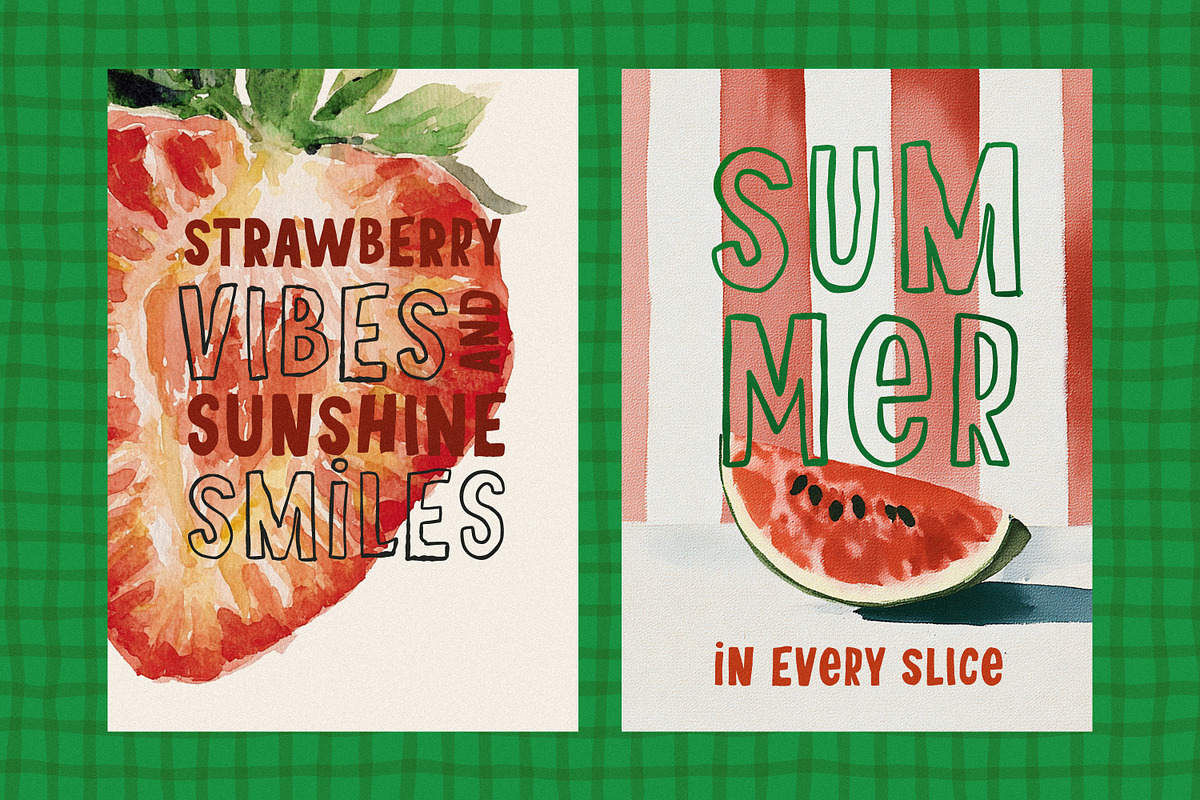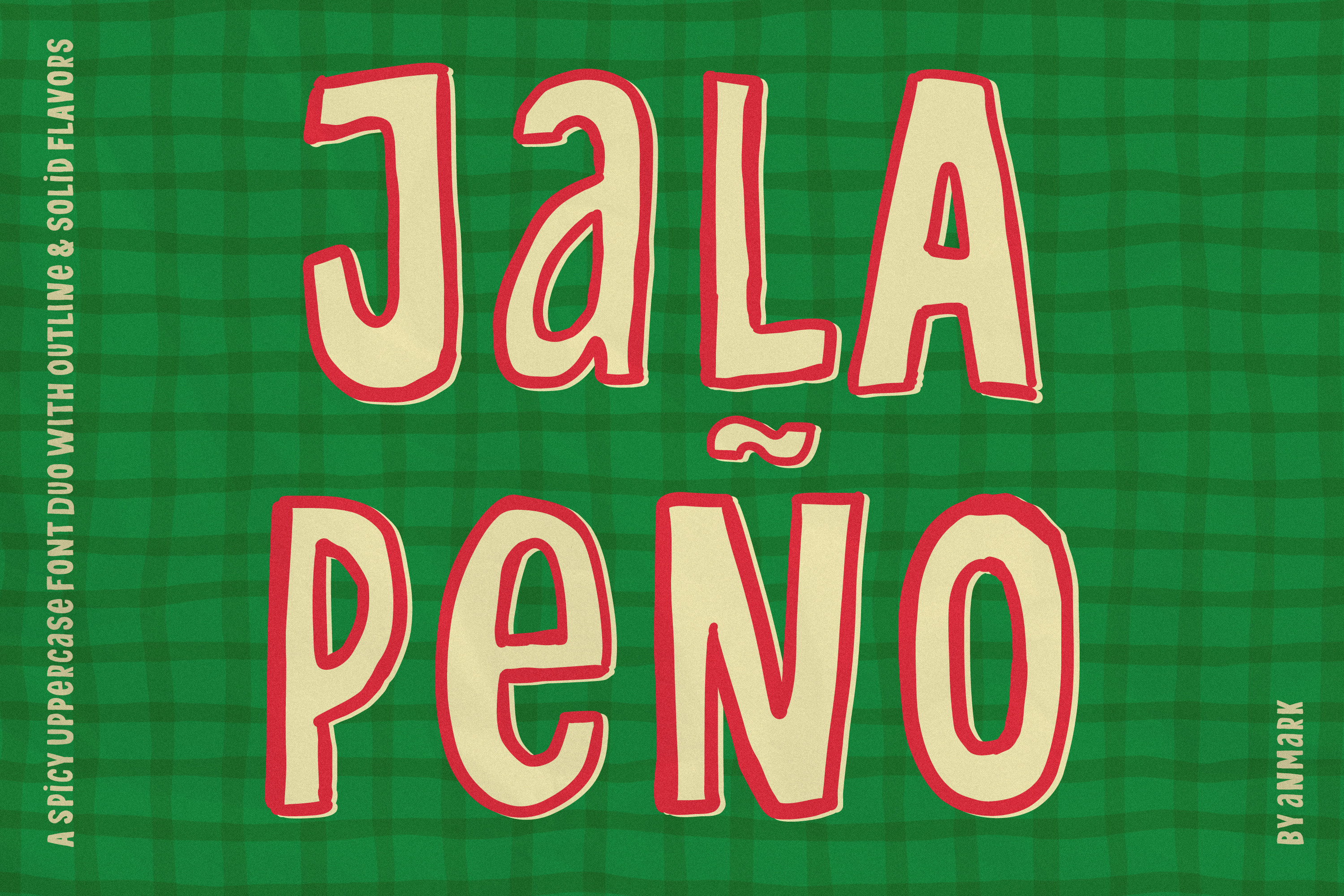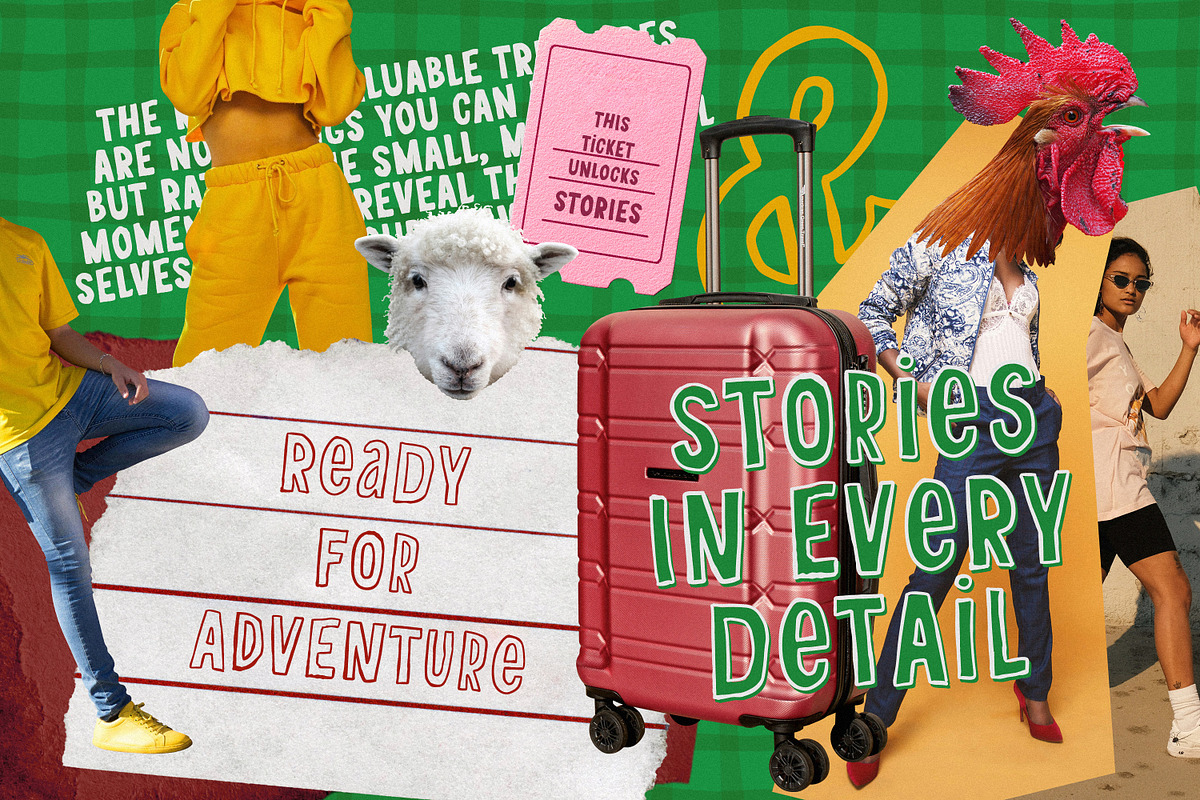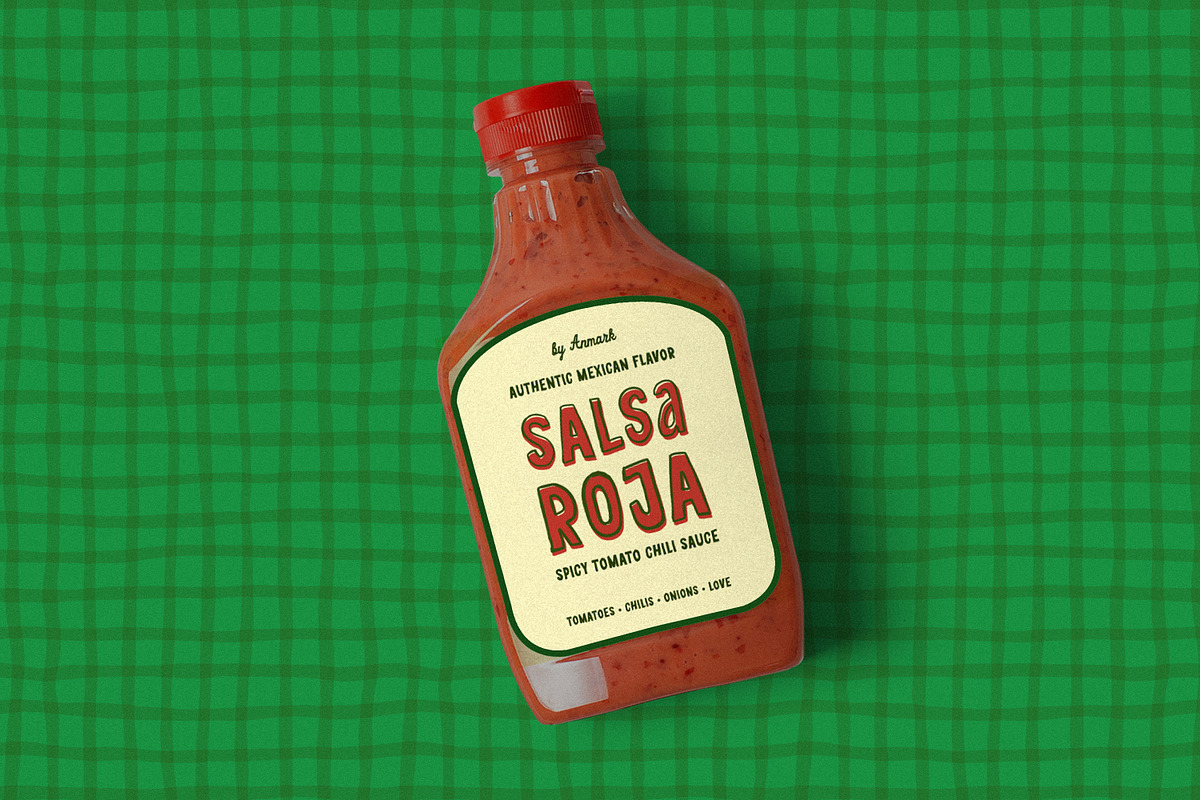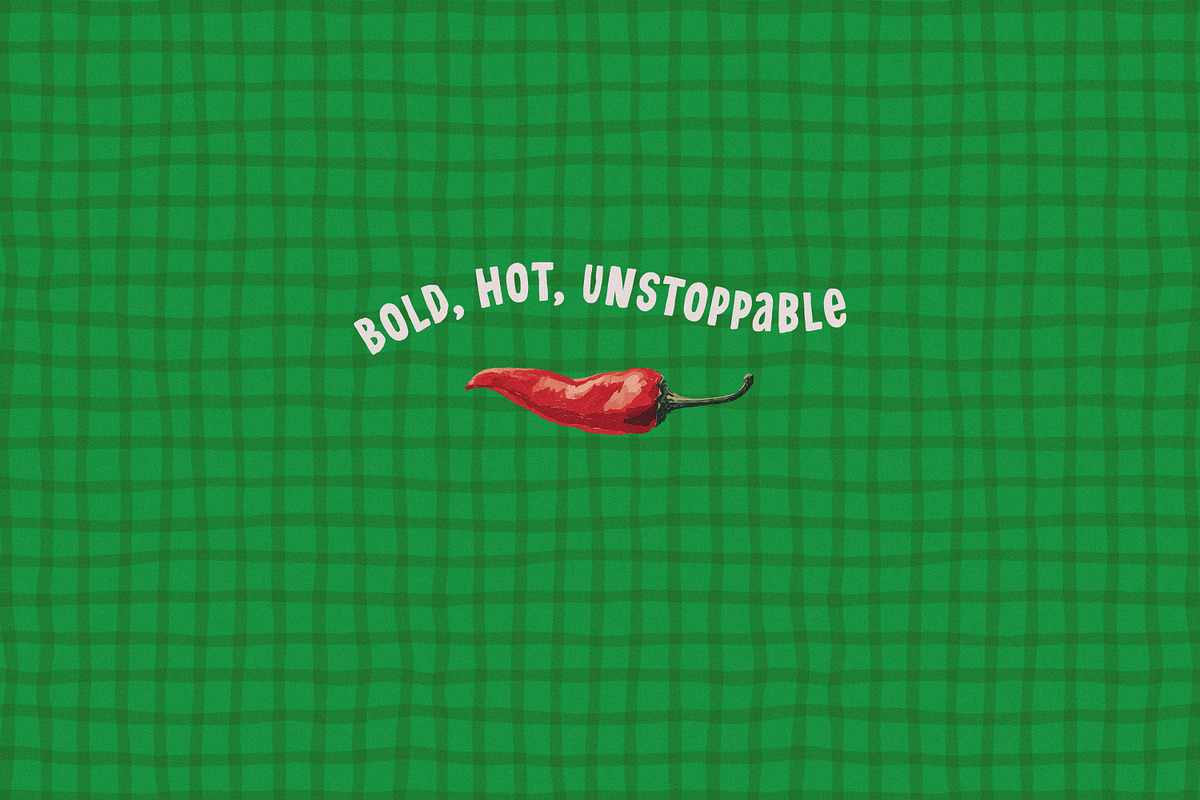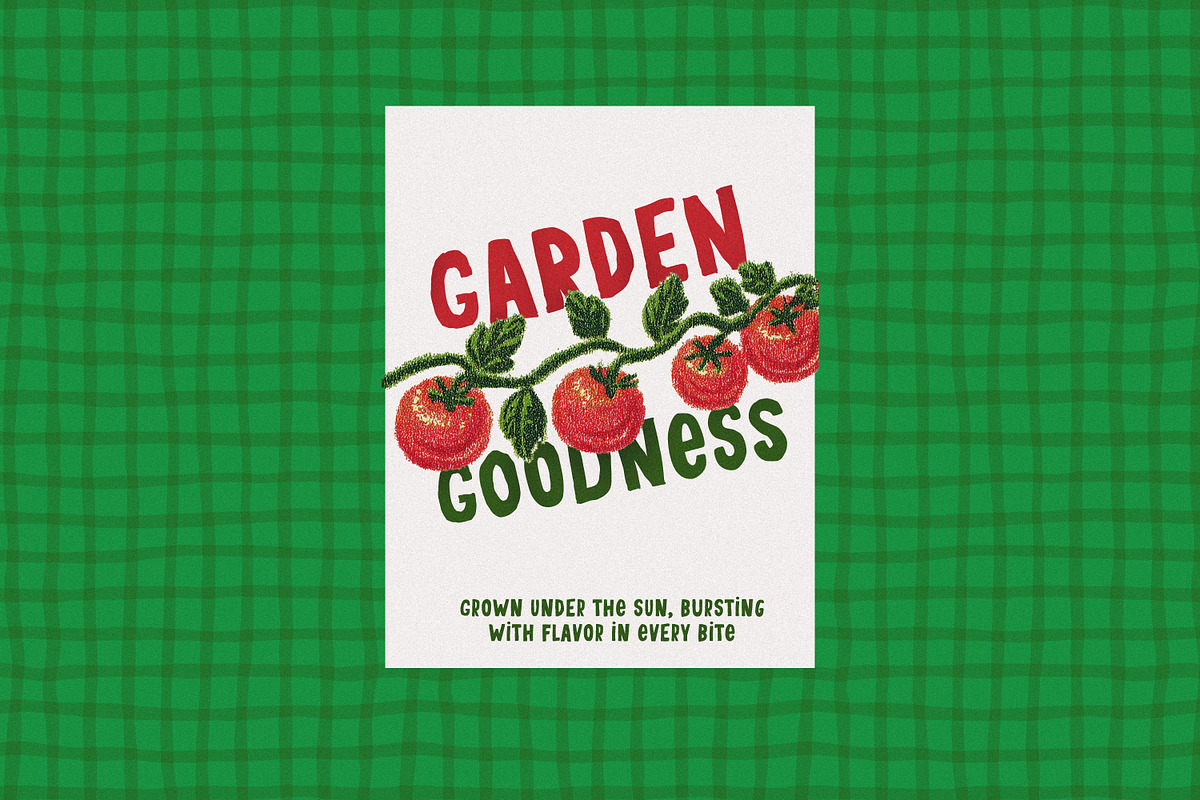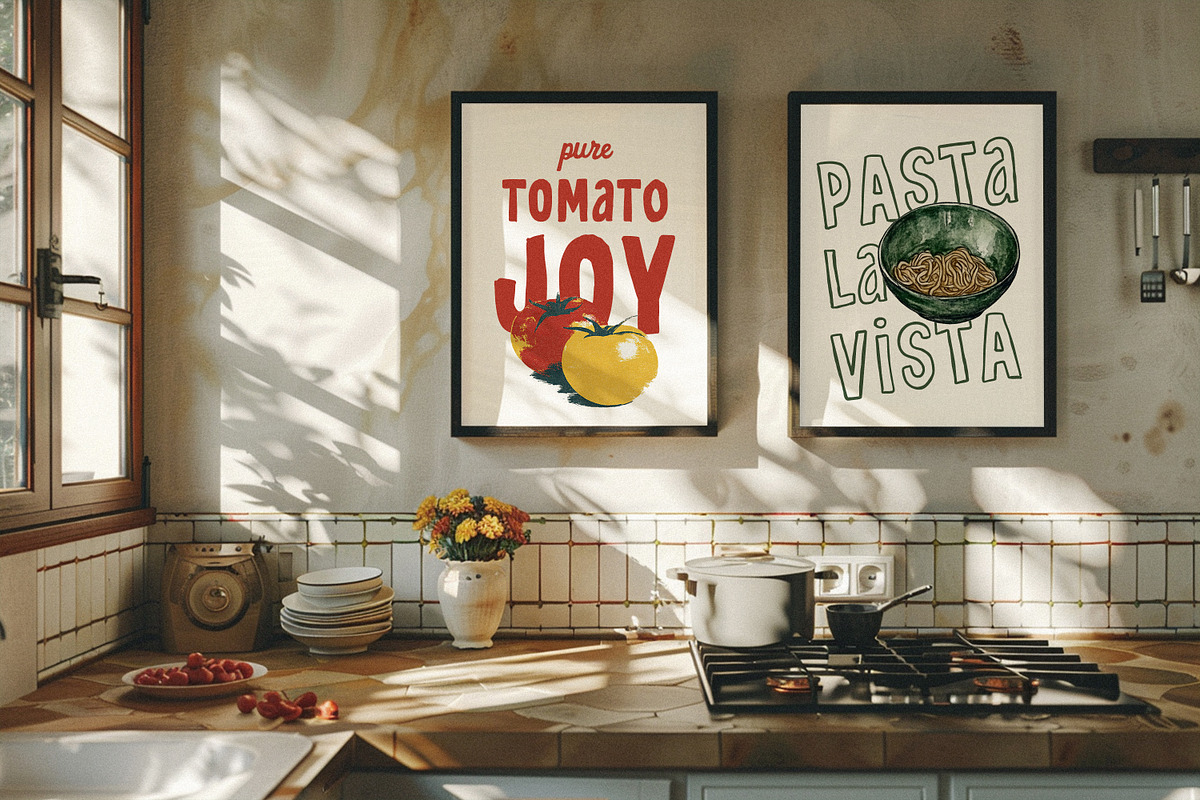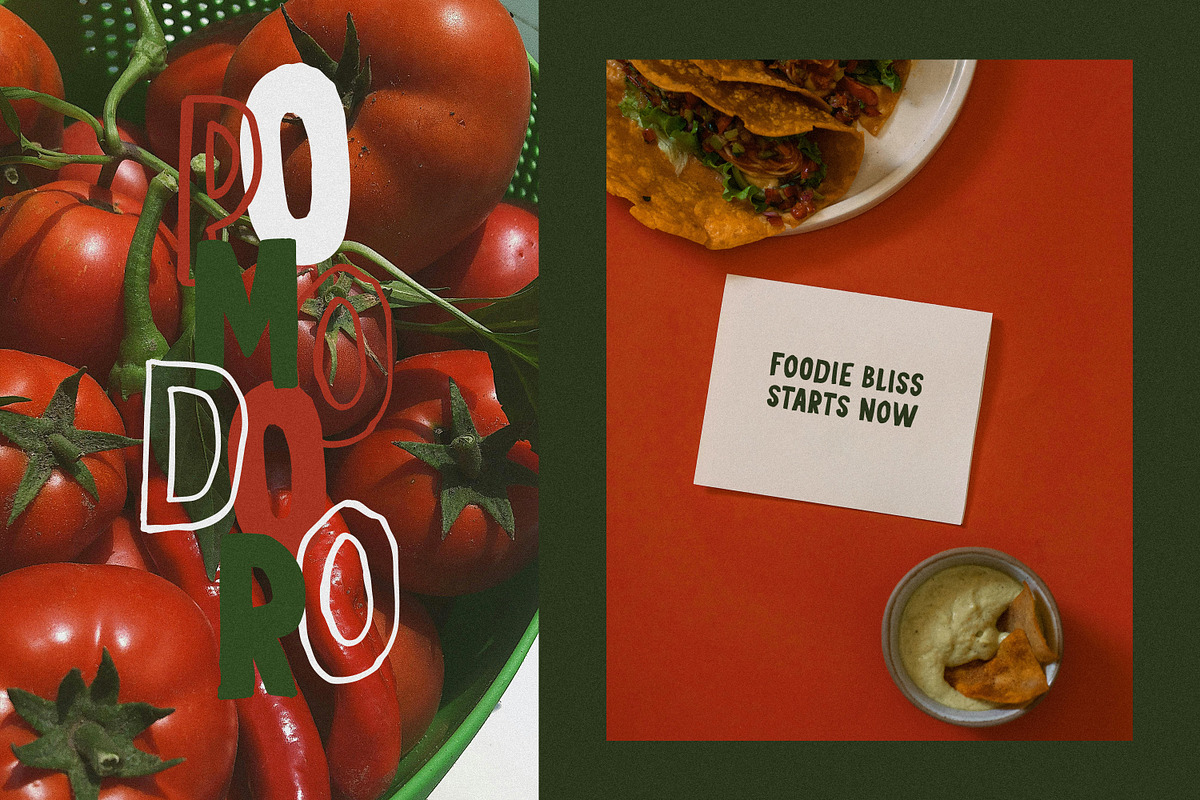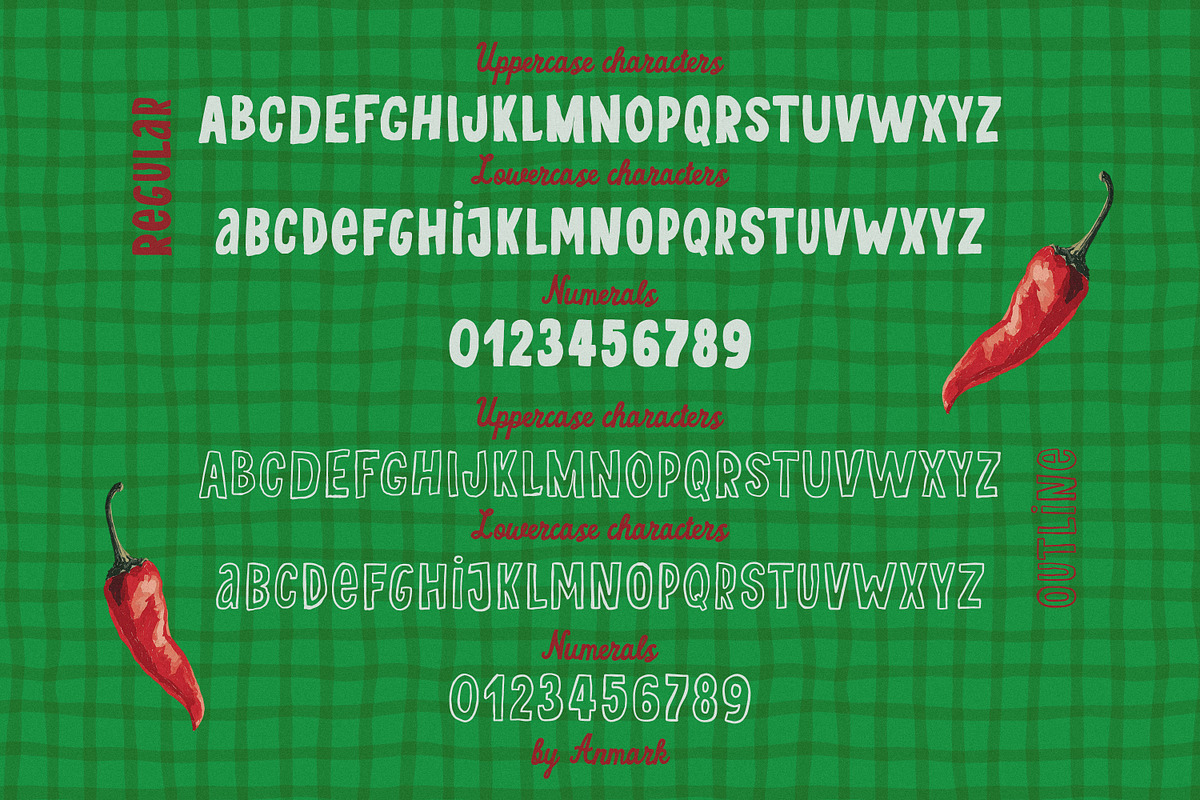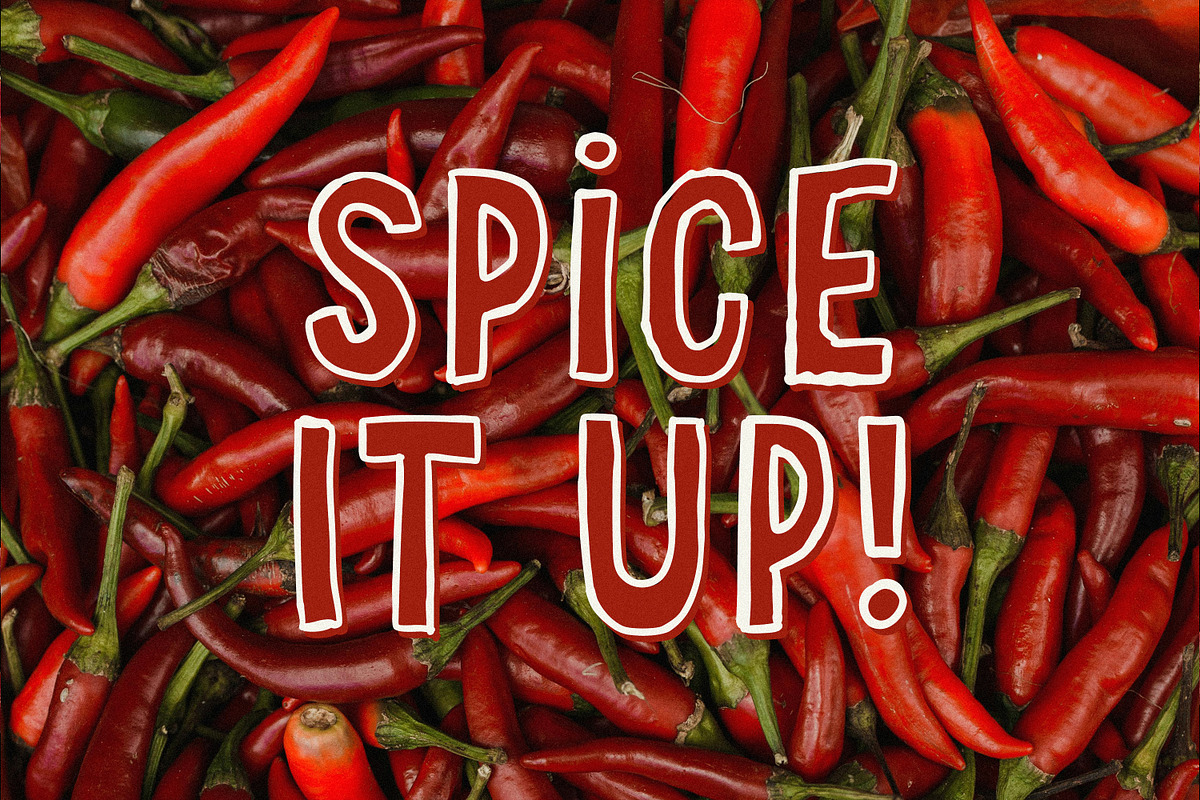
Jalapeno Spicy All Caps Font Duo
Jalapeño - Spicy All Caps Font Duo (Regular & Outline)
Turn up the heat in your designs with Jalapeño, a bold all caps handwritten font duo that brings serious flavor! With a touch of wild charm and a punch of personality, this font is perfect for projects that crave energy, attitude, and a little bit of spice.
Jalapeño includes two matching styles - Regular and Outline — that work together seamlessly. Mix and match to create eye-catching titles, logos, packaging, posters, or social media graphics with a playful edge.
Whether you're designing for food, fashion, or fun, Jalapeño adds that extra kick. Its expressive, hand-drawn look is full of warmth and movement - like a bold note scribbled with flair (and maybe a little salsa on the side).
Add some spice to your type - Jalapeño brings the heat.